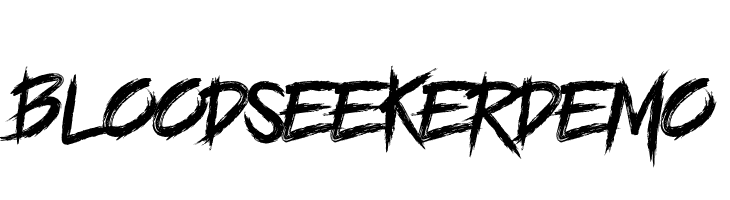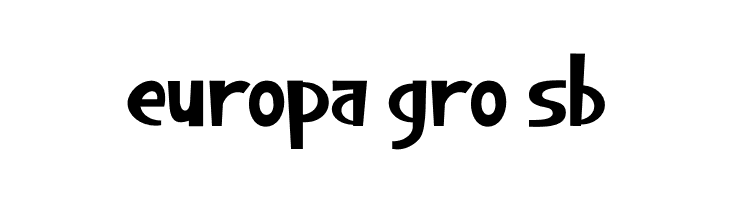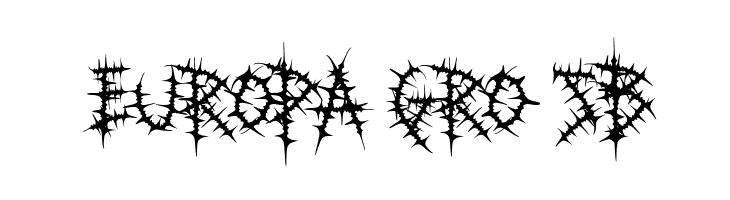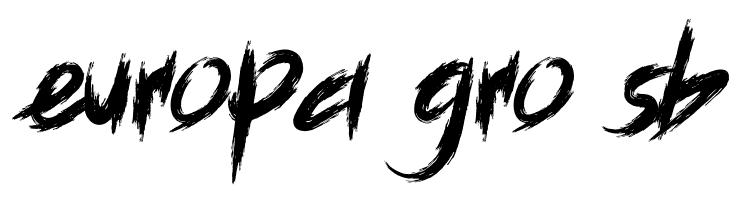
A bold, italic font with a futuristic and dynamic style.
A bold, gothic outline font with intricate detailing and a medieval aesthetic.
A bold, gothic-style font with intricate details and sharp edges.
A bold, playful font with a hand-drawn, whimsical style.
A bold, dripping font with a spooky, horror-themed design.
A thorny, decorative font with sharp, barbed wire-like extensions.
A bold, jagged font with dynamic, brush-like strokes.
A dramatic, gothic-style font with sharp serifs and elegant curves.
A bold, wavy, and italic font with a dramatic, liquid-like appearance.
A bold, expanded, and italicized decorative font with a splattered appearance.